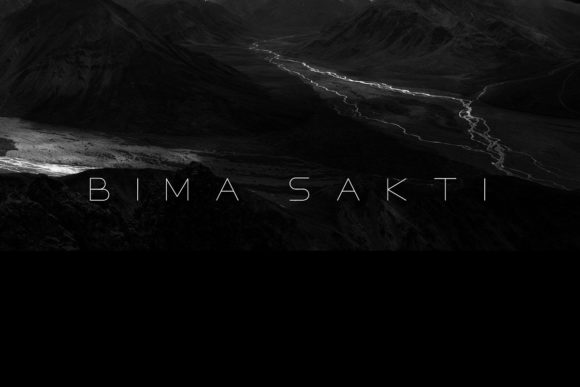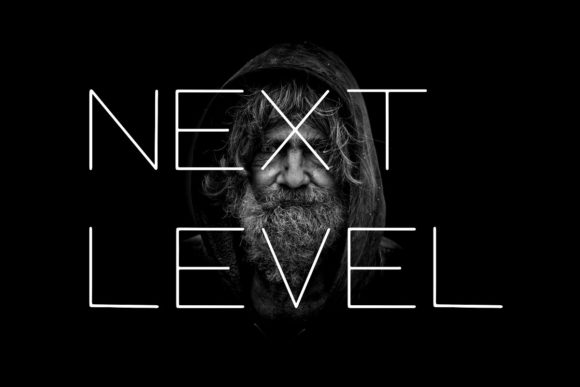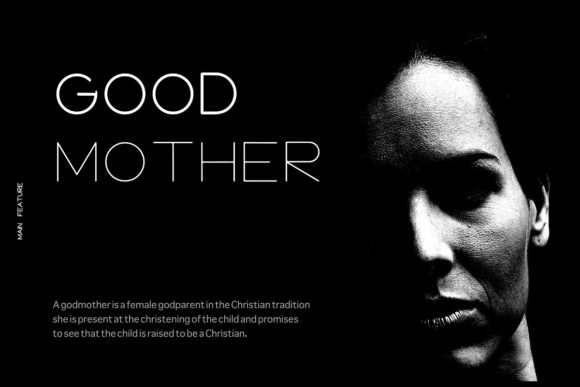
The Designer’s Delight: Getting to Know Foxus Font
Have you ever been in the middle of a design project, and suddenly, you’re stuck on finding the perfect font? I certainly have! It was a typical Wednesday evening when I found myself working on a branding project for a trendy new cafe. The client wanted something modern, clean, and highly legible. As I scrolled through my font library, one font caught my eye: Foxus. Its sleek, sans-serif lines seemed to scream “modern” and “fresh.” Little did I know, it would become my new go-to font for a wide range of projects.
An Honest Review of Foxus Font
So, what makes Foxus font so special? Let’s dive into the good stuff and, of course, a few quirks I’ve noticed.
What I Love About Foxus Font
- ✨ Modern and Neat Design: Foxus boasts a clean, contemporary look that fits well with current design trends.
- ✅ Versatility: It’s incredibly versatile and can be used for a wide range of projects, from branding and advertising to personal crafts and hobbies.
- 💡 Ease of Use: The font is easy to read, even at smaller sizes, making it perfect for body text or detailed work.
- 🎨 Creative Freedom: Foxus supports OpenType features, allowing for a good amount of creative freedom with ligatures, stylistic alternates, and more.
While Foxus is an excellent font, there are a few minor things to keep in mind:
- 🤔 Limited Extras: The basic version of Foxus might not come with extensive language support or an abundance of OpenType features compared to some premium fonts.
- ⚠️ Overuse: As with any font, using Foxus across too many projects without variation might make your work seem less unique over time.
Alternatives to Foxus Font
If you’re looking for something similar or want to explore other options, here are a few fonts you might enjoy:
- Inter: A highly versatile sans-serif font designed specifically for digital interfaces. It’s clean, modern, and comes with a range of weights.
- Montserrat: Inspired by urban typography, Montserrat offers geometric lines and a sleek appearance. It’s great for both digital and print projects.
- Open Sans: A friendly, approachable sans-serif font. It’s clean, modern, and highly legible across various devices.
- Poppins: A geometric sans-serif font with a clean and modern look. It’s great for digital and print projects alike and comes with a range of weights.
The Backstory of Foxus Font
While the origins of Foxus might not be well-documented, it’s easy to imagine a designer with a passion for modern minimalism creating a font that would meet the evolving needs of digital and print media. Perhaps the designer, fueled by late-night coffee and a love for clean lines, aimed to craft a font that could seamlessly blend into various projects, from sleek branding campaigns to personal craft projects.
Q: What makes Foxus font stand out?
A: Foxus stands out due to its modern and neat design, making it highly versatile for a wide range of projects.
Q: Does Foxus support OpenType features?
A: Yes, Foxus supports OpenType features, allowing for creative typography with ligatures, stylistic alternates, and more.
Q: Is Foxus suitable for body text?
A: Absolutely! Foxus is highly legible, even at smaller sizes, making it suitable for body text in both digital and print projects.
Foxus font is a modern and neat lettered sans serif font that can easily be matched to an incredibly large set of projects. Its clean design and versatility make it a valuable addition to any designer’s toolkit. So, add it to your creative ideas and notice how it makes them stand out!